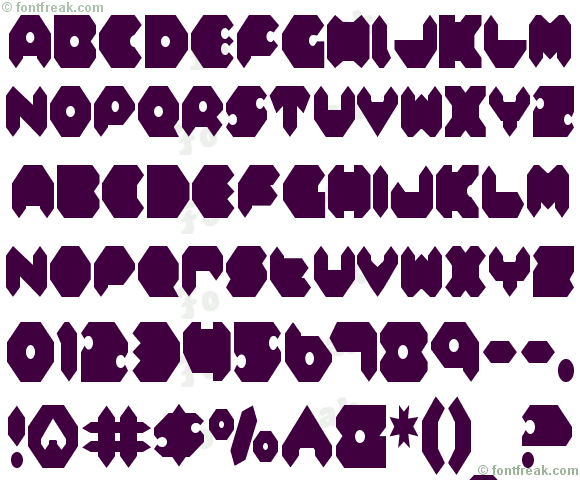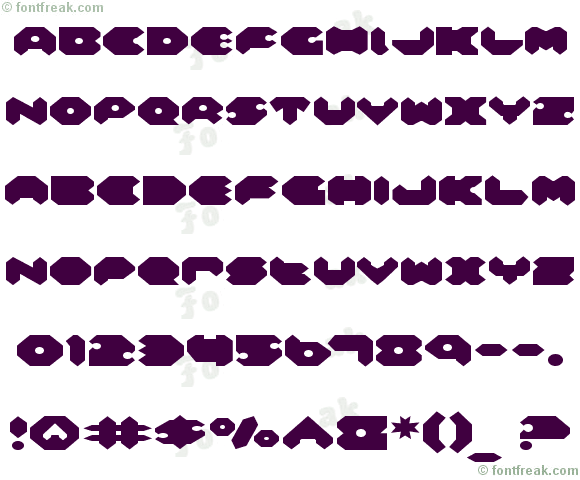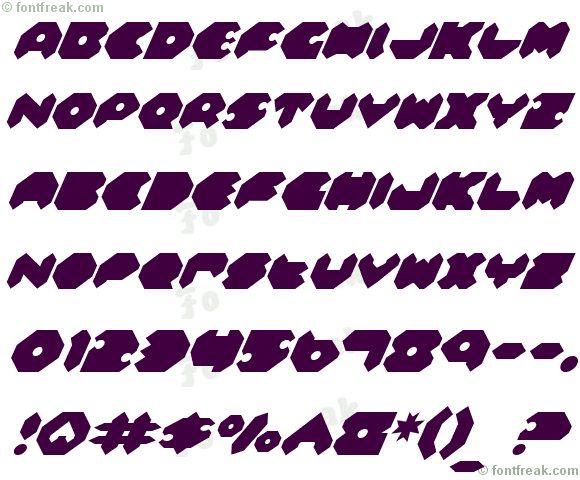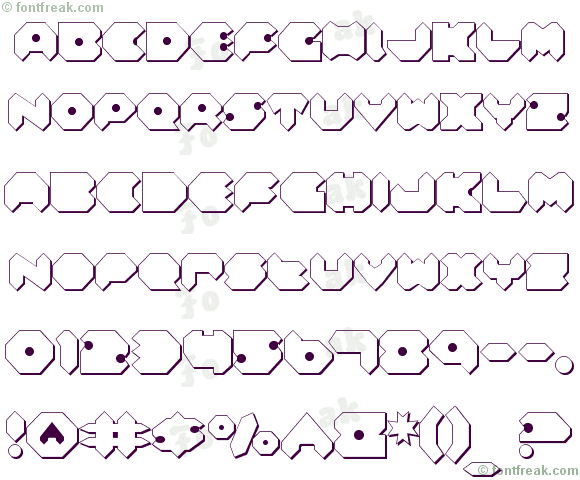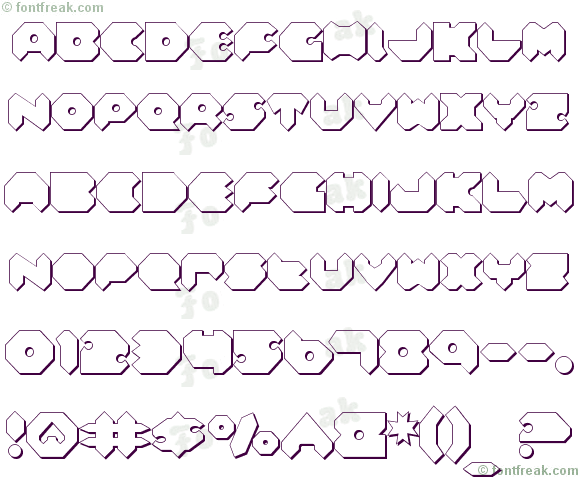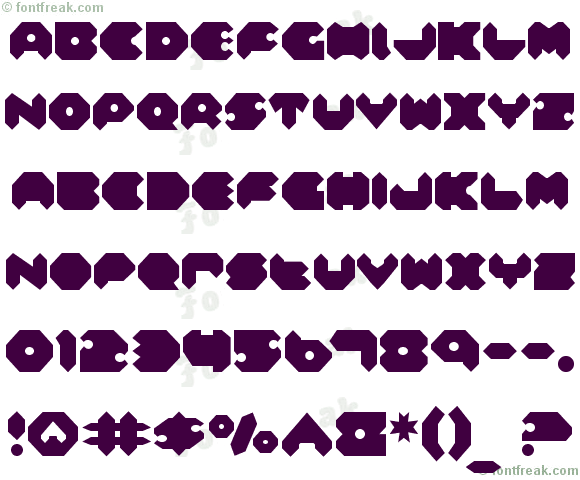
Feldercarb, created by Iconian Fonts in 2002, is a unique display typeface that captures attention with its bold and dynamic design. This font falls into the category of decorative fonts, characterized by its distinctive geometric shapes and eye-catching presence. The stroke weight is substantial, giving it a robust feel, while the contrast is minimal, enhancing its solid and structured appearance. The letters are closely spaced, creating a cohesive look that is both modern and striking. Decorative elements are present, including sharp angles and unconventional forms that add personality to the typeface.
Feldercarb is ideal for a variety of creative applications. It can be effectively used in movie posters, where its boldness can convey drama and excitement. Additionally, it works well for event flyers, helping to capture the essence of special occasions while maintaining an edgy aesthetic. Restaurant menus can also benefit from Feldercarb's unique style, as it can make dish titles stand out and engage diners. Furthermore, this font is suitable for branding projects aimed at capturing a youthful, energetic vibe, making it perfect for small business owners looking to create a memorable visual identity.
The target audience for Feldercarb includes graphic designers seeking to make a statement in their projects, content creators who want to infuse their work with personality, and marketing professionals looking to attract attention in a crowded marketplace.
What sets the Feldercarb font apart is its ability to balance playfulness and sophistication, making it versatile for various design contexts. Its freeware license allows for easy access, making the Feldercarb font free download an appealing option for those looking to elevate their design projects without financial constraints. Overall, Feldercarb stands out for its unique character and striking visual impact, making it a valuable addition to any typographic collection.